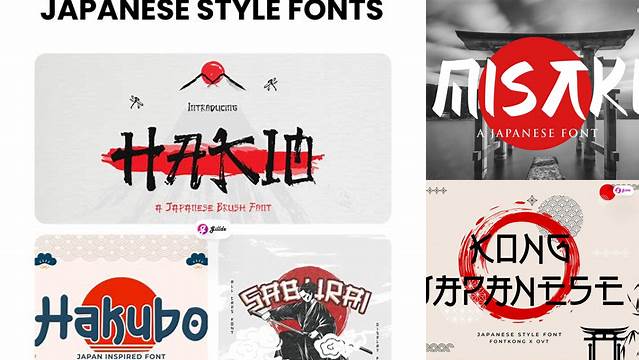
Free Japanese Fonts: A Guide To Elegant Typography
Introduction: Embracing the Art of Japanese Style Fonts
Hey guys! Are you looking to infuse your designs with the elegance and sophistication of Japanese typography? You've come to the right place! In this comprehensive guide, we'll dive deep into the world of Japanese style fonts, exploring their rich history, diverse styles, and how you can use them to create stunning visuals. Whether you're a seasoned designer or just starting out, understanding the nuances of these fonts will elevate your work and capture the essence of Japanese aesthetics. Japanese-style fonts are more than just a set of characters; they are a reflection of centuries of artistic tradition, cultural values, and meticulous craftsmanship. These fonts, with their unique strokes, elegant curves, and distinctive forms, offer a gateway to understanding the depth and beauty of Japanese calligraphy and design. By incorporating these fonts into your projects, you can instantly add a touch of authenticity and sophistication, making your designs stand out and resonate with your audience. This guide will walk you through the various aspects of Japanese-style fonts, from their historical roots and different classifications to practical tips on how to select and use them effectively. We'll also explore the best resources for finding high-quality, free Japanese fonts, ensuring that you have access to the tools you need to bring your creative visions to life. So, let's embark on this exciting journey and unlock the potential of Japanese typography together!
The History and Evolution of Japanese Typography
The journey of Japanese typography is a fascinating tale that spans centuries, tracing its roots back to ancient Chinese calligraphy. The adoption of Chinese characters, or kanji, in Japan during the 5th and 6th centuries marked a pivotal moment in the development of the Japanese writing system. These intricate characters, each representing a word or concept, became the foundation upon which Japanese typography was built. Over time, the Japanese adapted and evolved these characters, creating their own unique styles and forms. The introduction of hiragana and katakana, two phonetic scripts, further enriched the Japanese writing system, adding layers of complexity and beauty to the art of typography. These scripts, developed during the Heian period (794-1185), allowed for a more flexible and expressive form of writing, catering to the nuances of the Japanese language. The evolution of Japanese typography was not merely a linguistic phenomenon; it was deeply intertwined with the cultural and artistic landscape of Japan. Calligraphy, known as shodo, emerged as a highly esteemed art form, with skilled calligraphers revered for their ability to capture the essence of words through their brushstrokes. The principles of shodo, such as balance, harmony, and flow, heavily influenced the design of Japanese fonts, shaping their character and aesthetic appeal. The advent of printing in Japan during the Edo period (1603-1868) brought about significant changes in typography. Woodblock printing, a technique that allowed for the mass production of books and other materials, led to the standardization of fonts and the development of distinct typographic styles. This period saw the emergence of various font styles, each with its own unique characteristics and applications. From the elegant and formal mincho style to the bold and dynamic gothic style, Japanese typography diversified to meet the growing demands of a literate society. Today, Japanese typography continues to evolve, blending traditional aesthetics with modern design principles. Digital fonts have opened up new possibilities for creativity, allowing designers to experiment with different styles and techniques. However, the essence of Japanese typography remains rooted in its rich history and cultural heritage, ensuring that these fonts continue to inspire and captivate for generations to come.
Key Characteristics of Japanese Style Fonts
What makes Japanese style fonts so distinctive and captivating? It's a combination of several key characteristics that set them apart from other typographic styles. Understanding these characteristics is crucial for selecting the right font for your project and using it effectively. First and foremost, the complexity of the Japanese writing system plays a significant role in the design of these fonts. With thousands of kanji characters, each composed of multiple strokes, Japanese fonts require meticulous attention to detail. The balance and harmony of these strokes are essential for legibility and aesthetic appeal. Japanese fonts also incorporate elements of traditional calligraphy, shodo, which emphasizes the fluidity and expressiveness of brushstrokes. This influence can be seen in the varying stroke weights, subtle curves, and overall organic feel of many Japanese fonts. The kana scripts, hiragana and katakana, add another layer of complexity to Japanese font design. These phonetic scripts, with their rounded forms and graceful lines, contrast with the angularity of kanji characters, creating a visual rhythm that is unique to Japanese typography. The interplay between kanji and kana is a defining characteristic of Japanese fonts, requiring designers to carefully balance the two for optimal readability and visual harmony. Another important characteristic of Japanese fonts is their vertical orientation. Traditionally, Japanese text is written vertically, from top to bottom and right to left. This vertical orientation has influenced the design of Japanese fonts, with characters often appearing elongated and stacked on top of each other. While Japanese can also be written horizontally, vertical writing remains an important aspect of Japanese typography, and many fonts are designed with this orientation in mind. Finally, the cultural context of Japanese design plays a significant role in the characteristics of Japanese fonts. Japanese aesthetics emphasize simplicity, elegance, and harmony, and these values are reflected in the design of Japanese typography. Many Japanese fonts feature clean lines, subtle details, and a sense of understated sophistication. The use of negative space, or ma, is also a key element of Japanese design, allowing the characters to breathe and creating a sense of visual balance. By understanding these key characteristics, you can appreciate the artistry and craftsmanship that goes into creating Japanese style fonts and use them to their full potential in your designs.
Popular Styles of Japanese Fonts
The world of Japanese fonts is incredibly diverse, with a wide range of styles to choose from. Each style has its own unique characteristics and applications, making it essential to understand the different options available. Two of the most popular styles are Mincho and Gothic, each representing a distinct approach to Japanese typography. Mincho fonts are characterized by their elegant and refined appearance. They are the Japanese equivalent of serif fonts in Western typography, featuring delicate serifs at the ends of strokes. Mincho fonts are often used for body text in books, newspapers, and other publications, as their readability and classical aesthetic make them well-suited for long-form content. The graceful lines and balanced proportions of Mincho fonts convey a sense of sophistication and formality, making them a popular choice for traditional and formal designs. In contrast, Gothic fonts, also known as Gothic-tai or Kaku Gothic, are bold and impactful. They are the Japanese equivalent of sans-serif fonts, lacking the delicate serifs of Mincho fonts. Gothic fonts have a strong, geometric appearance, making them ideal for headlines, signage, and other applications where visibility is paramount. Their bold strokes and clean lines command attention, ensuring that the message is conveyed with clarity and impact. Another notable style of Japanese fonts is the Maru Gothic style. Maru Gothic fonts are similar to Gothic fonts but feature rounded terminals, giving them a softer and more approachable feel. This style is often used in advertising, packaging, and other designs that aim to create a friendly and inviting impression. The rounded forms of Maru Gothic fonts add a touch of playfulness and warmth, making them a versatile choice for a wide range of applications. Beyond these core styles, there are many other variations and subcategories of Japanese fonts, each with its own unique characteristics. Calligraphic fonts, for example, mimic the brushstrokes of traditional shodo, while display fonts offer more stylized and decorative options. By exploring the diverse styles of Japanese fonts, you can find the perfect typeface to match your project's tone and aesthetic.
Tips for Using Japanese Style Fonts Effectively
So, you've found the perfect Japanese style font – now what? Using these fonts effectively requires a bit of know-how to ensure that your designs are both visually appealing and culturally sensitive. Here are some essential tips to help you make the most of Japanese typography. First and foremost, consider the context of your design. Japanese fonts carry a strong cultural identity, and it's important to use them appropriately. Think about the message you want to convey and the audience you are targeting. A traditional Mincho font might be ideal for a formal invitation or a book cover, while a bold Gothic font might be better suited for a website headline or a poster. Understanding the nuances of different font styles and their cultural connotations will help you choose the right typeface for your project. Legibility is another crucial factor to consider when using Japanese fonts. The complexity of the Japanese writing system can make some fonts difficult to read, especially at small sizes. Choose fonts that are clear and well-designed, with sufficient spacing between characters. Avoid using overly decorative or stylized fonts for body text, as they can strain the eyes and hinder readability. Pay close attention to line height and letter spacing to ensure that your text is comfortable to read. The combination of Japanese and Western typography can be a powerful design tool, but it requires careful consideration. When mixing Japanese fonts with Latin alphabets, choose a Western typeface that complements the Japanese font in terms of style and weight. Avoid using overly contrasting fonts, as this can create visual disharmony. A general rule of thumb is to pair Japanese fonts with clean and simple Western typefaces, such as sans-serif fonts. The use of color can also significantly impact the effectiveness of Japanese typography. Traditional Japanese design often emphasizes muted colors and subtle contrasts, creating a sense of elegance and refinement. Consider using a limited color palette that complements the font style and the overall aesthetic of your design. Avoid using overly bright or clashing colors, as this can detract from the beauty of the typography. Finally, don't be afraid to experiment and explore different options. Japanese typography offers a wealth of creative possibilities, and there is no one-size-fits-all solution. Try out different fonts, sizes, and layouts to see what works best for your project. By following these tips, you can use Japanese style fonts effectively and create designs that are both visually stunning and culturally resonant.
Conclusion: The Timeless Appeal of Japanese Style Fonts
In conclusion, Japanese style fonts offer a unique and compelling way to add elegance, sophistication, and cultural depth to your designs. From their rich history and diverse styles to their intricate characters and expressive forms, these fonts provide a window into the world of Japanese aesthetics. By understanding the key characteristics of Japanese typography, exploring the different font styles available, and following the tips for effective usage, you can unlock the full potential of these beautiful typefaces. Whether you're designing a website, creating a poster, or crafting a book cover, Japanese style fonts can help you convey your message with clarity, impact, and cultural sensitivity. The availability of free Japanese fonts online makes it easier than ever to incorporate these typefaces into your projects. Resources like Google Fonts and Fontworks offer a wide selection of high-quality fonts that are free to use for personal and commercial purposes. By taking advantage of these resources, you can build a comprehensive collection of Japanese fonts and elevate your designs to new heights. The timeless appeal of Japanese style fonts lies in their ability to blend tradition with modernity. These fonts are rooted in centuries of artistic tradition, yet they remain relevant and versatile in today's design landscape. Their clean lines, elegant curves, and subtle details make them a perfect choice for a wide range of applications, from formal and traditional designs to contemporary and minimalist projects. As you continue to explore the world of Japanese typography, remember to approach it with respect and cultural sensitivity. Japanese fonts are more than just design elements; they are a reflection of a rich cultural heritage. By understanding and appreciating the history and nuances of these fonts, you can use them in a way that is both authentic and impactful. So go ahead, dive into the world of Japanese style fonts, and let your creativity flow! With the right typeface and a bit of know-how, you can create designs that are truly unforgettable.